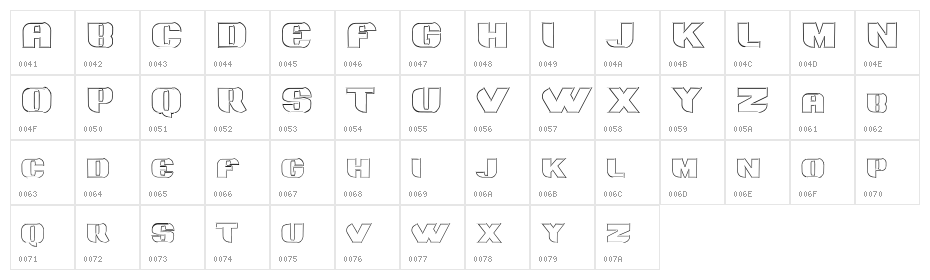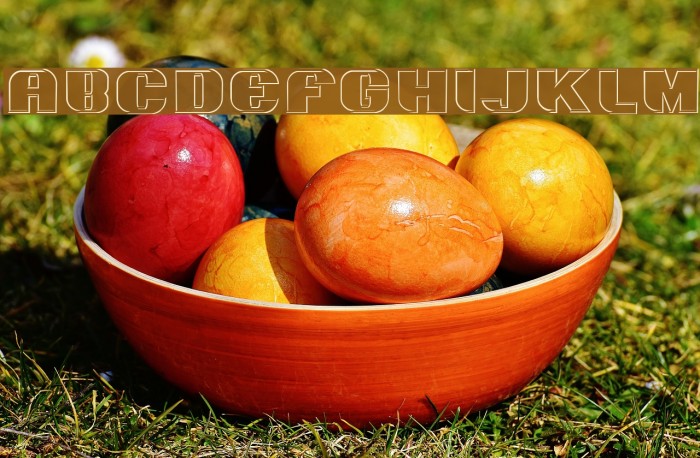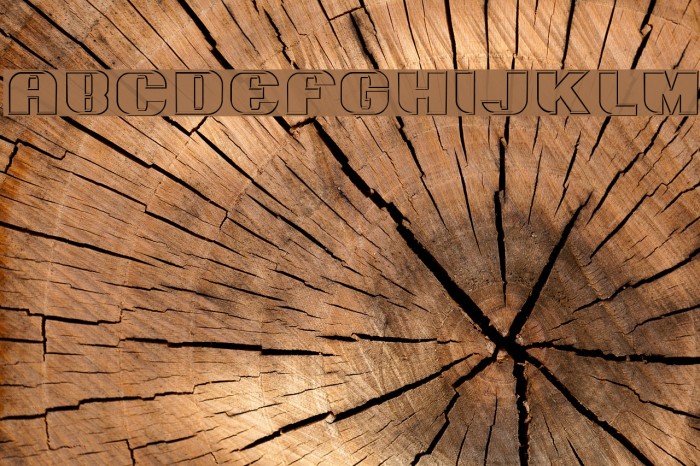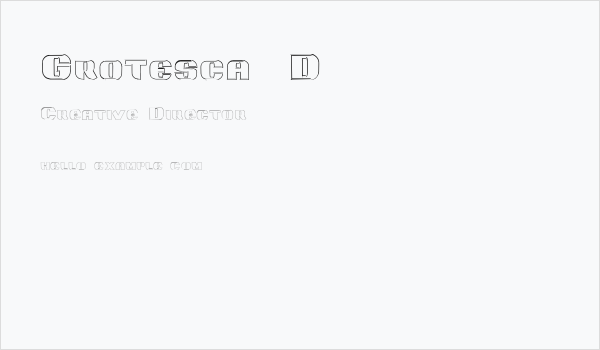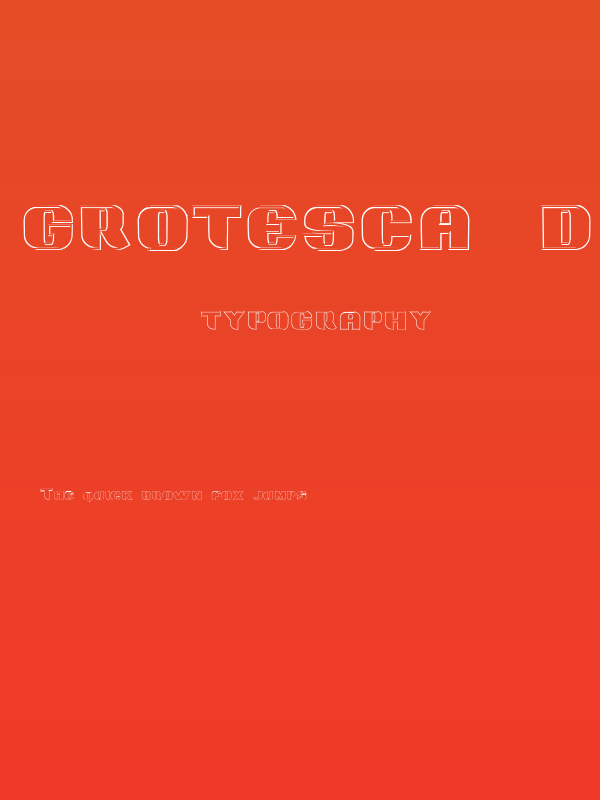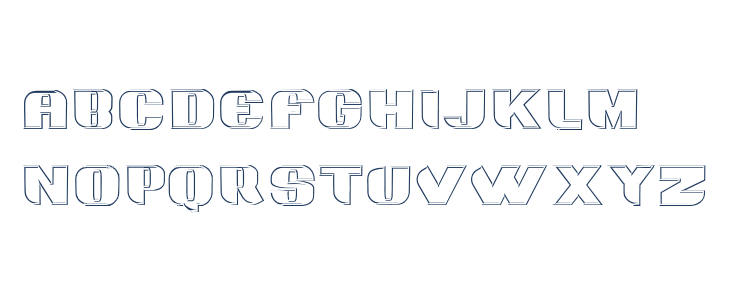
Grotesca3-D Font
Grotesca3-D Description
This font features a bold, three-dimensional design with a distinct outline that gives each character a sense of depth and structure. The geometric shapes are consistent throughout, with sharp angles and clean lines that create a modern and industrial feel. The uppercase letters are uniform in height, while the lowercase letters maintain a similar style, ensuring readability and cohesion. The numbers and special characters follow the same design principles, making them easily recognizable and visually appealing. This font's unique style makes it stand out, offering a striking visual impact.
| Proposed Projects | Ideal for projects requiring a strong visual impact, such as posters, logos, branding materials, and headlines. |